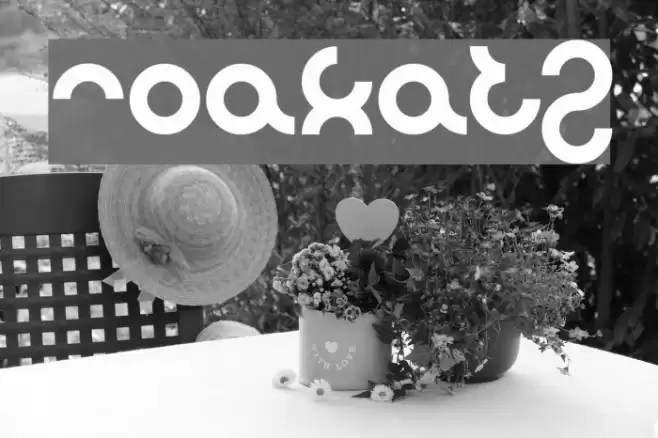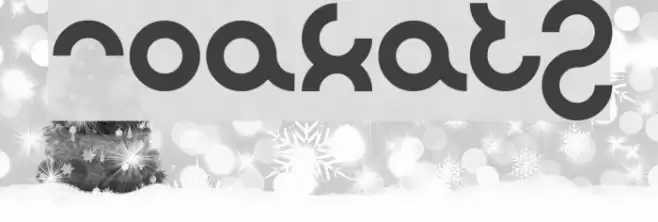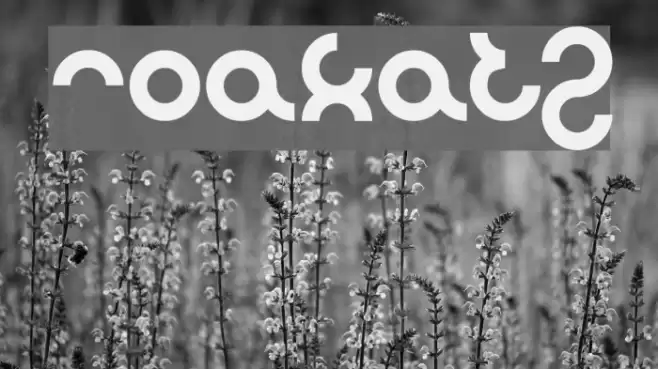
noakatz Font
noakatz Description
This font features a highly decorative and abstract design, characterized by its bold and thick strokes. The characters are formed with a unique, circular motif that gives them a futuristic and artistic appearance. The font lacks traditional letterforms, instead opting for a creative approach that emphasizes visual impact over readability. The absence of straight lines and the presence of curves and loops make it stand out as a display typeface. Its distinctiveness lies in the way it transforms basic letter shapes into intricate patterns, making it suitable for artistic and experimental projects.
A bold, abstract font with circular motifs and artistic design from Uncategorized fonts.
- Proposed Projects: Ideal for artistic projects, experimental designs, and creative branding.
- Overall Style: Modern, Artistic
- Use Case: Logos, Posters, Artistic projects